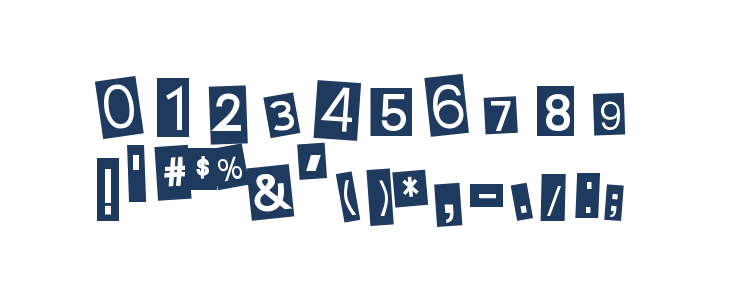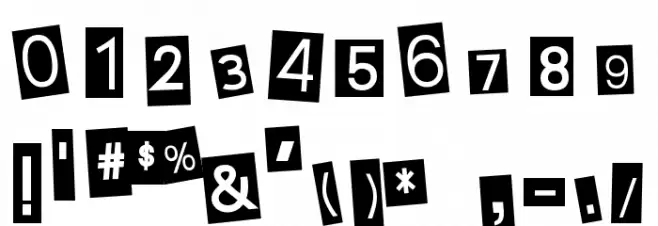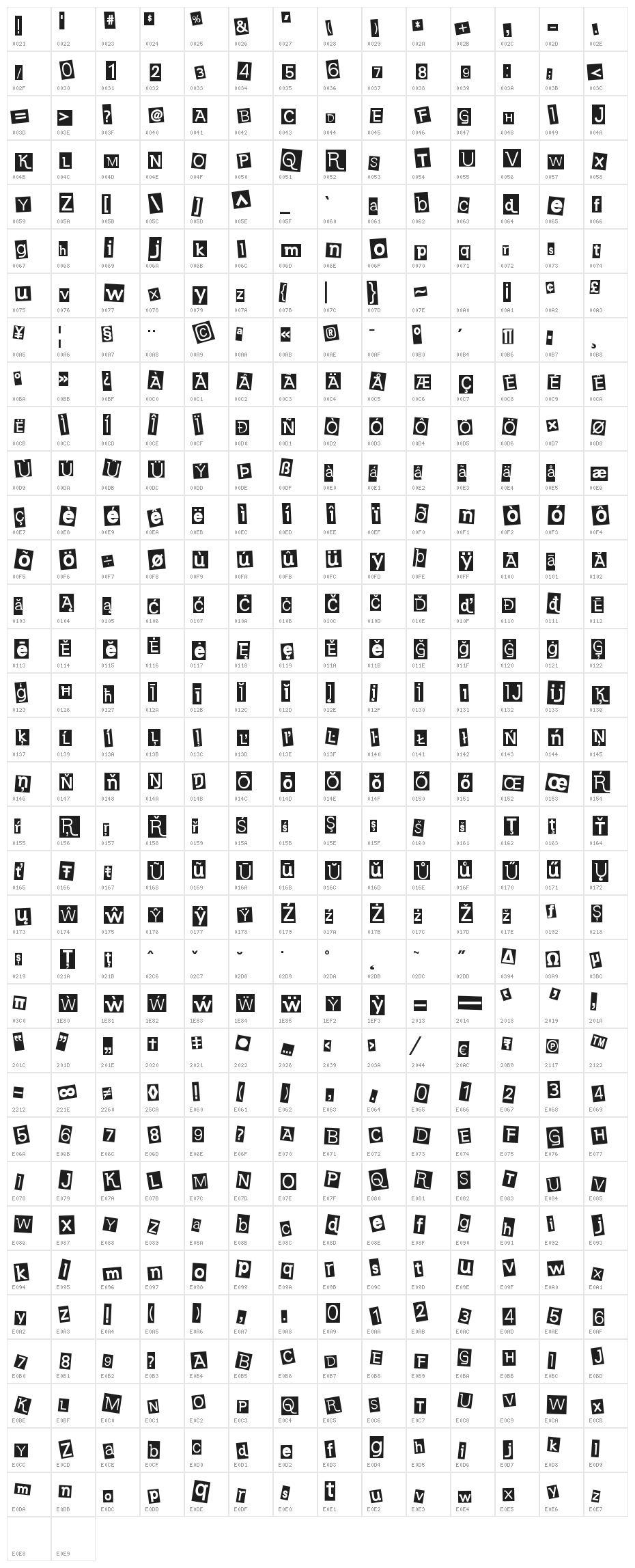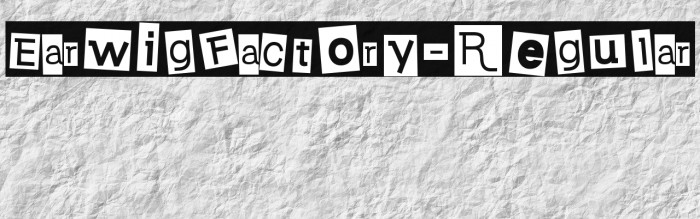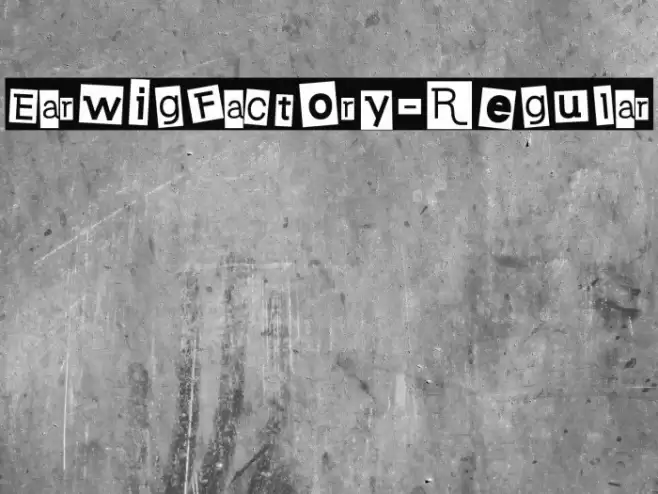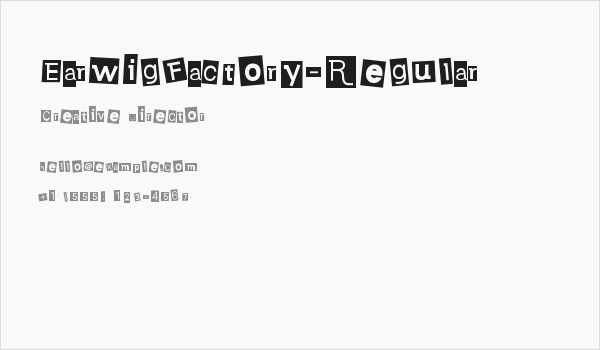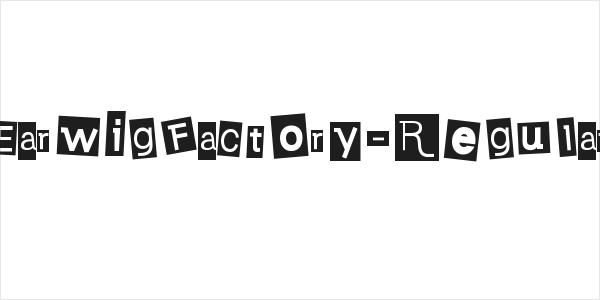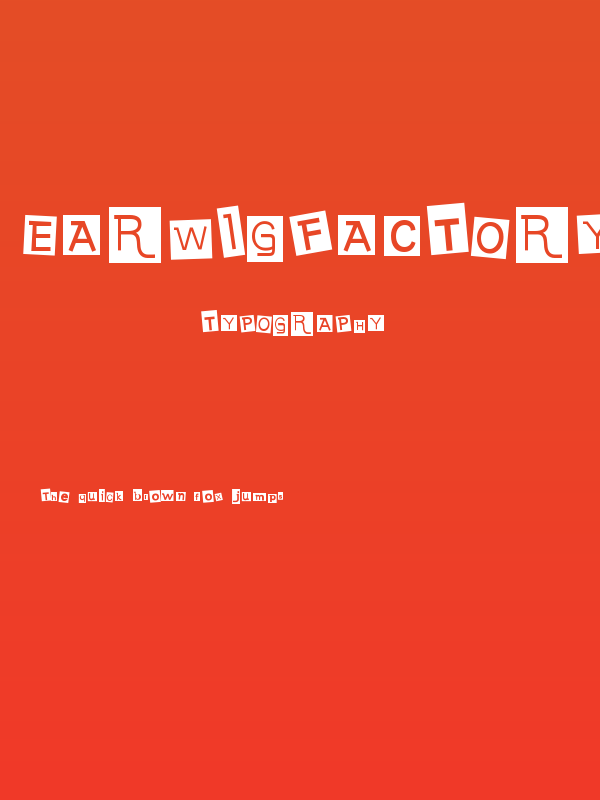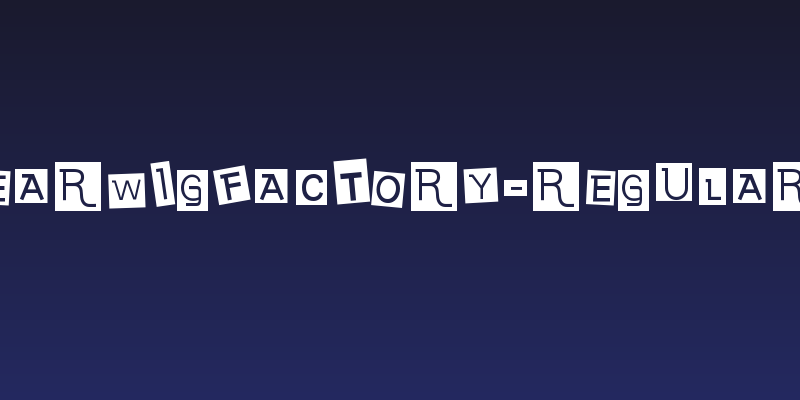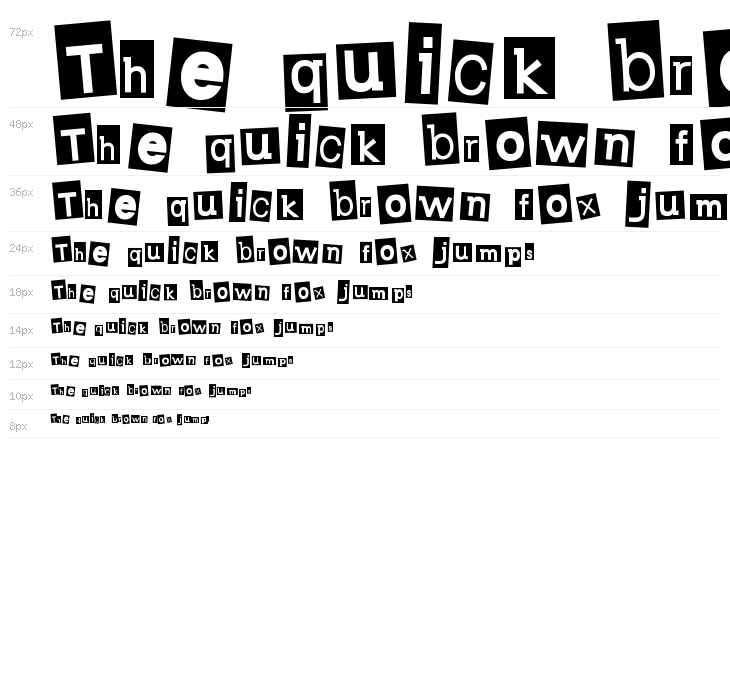
EarwigFactory-Regular Font
EarwigFactory-Regular Description
This font features a playful and eclectic design, reminiscent of cut-out letters from magazines or newspapers. Each character is uniquely styled with varying sizes and orientations, creating a dynamic and informal appearance. The letters are bold and stand out against their backgrounds, making them highly visible and attention-grabbing. The font includes both uppercase and lowercase letters, numbers, and a variety of special characters, all maintaining the quirky, ransom-note aesthetic. This style is ideal for projects that require a fun, unconventional look.
| Use Case | Headlines, Posters, Creative Designs |
| Proposed Projects | Ideal for creative projects like posters, flyers, children's books, or any design needing a whimsical touch. |